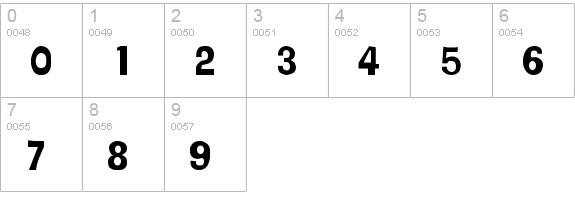
ST AdSix Regular Font Details
ST AdSix Regular is the standard, neutral variant in the ST typeface family \xE2\x80\x94 well suited to general body text, paragraphs, and standard typographic work.
ST AdSix Regular font is a versatile typeface that combines modern elegance with timeless appeal. Its clean lines and balanced proportions make it ideal for a wide range of design projects, from branding to editorial layouts. The font's crisp and legible characters ensure readability across various mediums, making it a reliable choice for both print and digital applications.